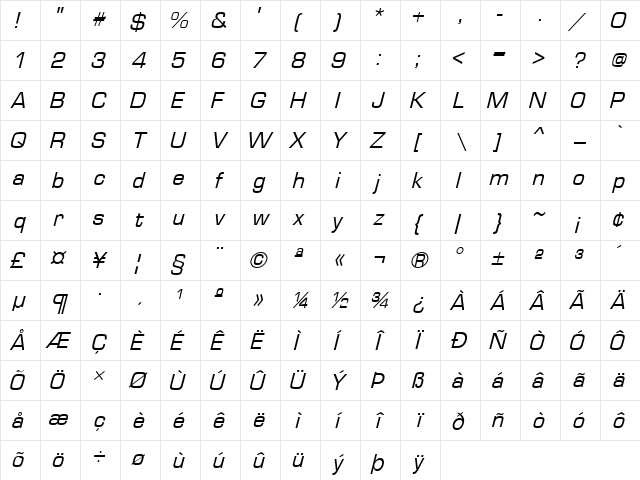
Waukegan LDO Oblique
| Foundry | LDO Fonts |
| Designer | Luke Owens |
Design Context for Waukegan LDO Typeface
Waukegan LDO is a composed and adaptable typeface that performs quietly and consistently across a wide range of design contexts. The slanted form adds forward momentum and visual energy.
Pro Tip: Use Waukegan LDO for emphasis, pull quotes, and subheadings where its slanted energy can add rhythm to the layout.